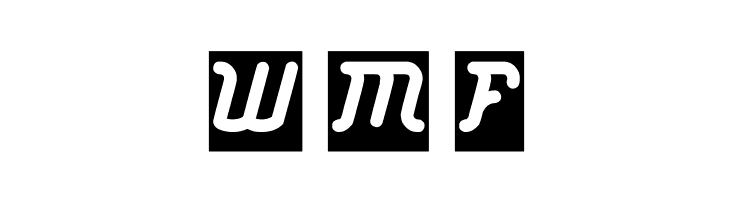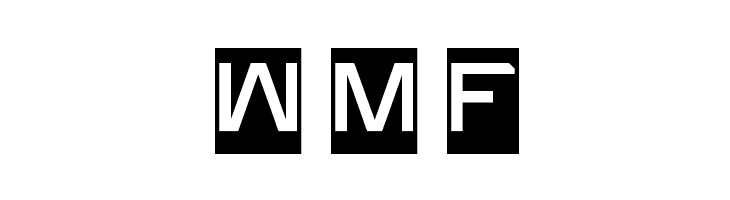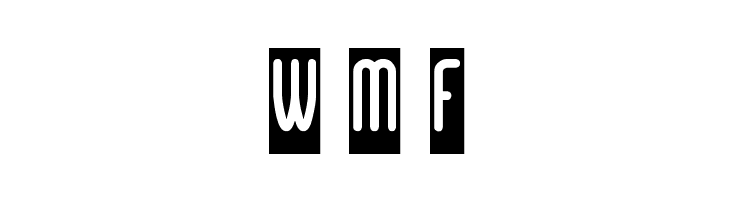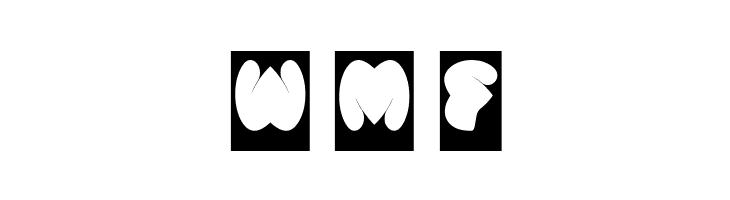
A bold, geometric font with a futuristic and cohesive design.
A bold, retro-inspired font with rounded, chunky characters.
A bold, jagged font with sharp, irregular edges for a dramatic effect.
A futuristic, geometric typeface with consistent stroke width and sharp angles.
A futuristic, hollow, outlined font with a digital aesthetic.
A modern, high-contrast font with elongated, vertically emphasized characters.
A futuristic, geometric font with consistent stroke width and bold presence.
A bold, playful font with rounded, bubble-like characters.
A bold, high-contrast font with sharp angles and smooth curves, offering a dynamic and modern style.
A bold, geometric font with a modern double-line style.
An artistic and decorative font with intricate woven patterns.
A bold, decorative font with high contrast and a stencil-like appearance.
A bold, geometric font with angular shapes and a futuristic look.
A futuristic, geometric font with bold lines and unique negative space usage.
A bold, futuristic font with geometric shapes and strong visual impact.
A bold, geometric font with angular strokes and high contrast, perfect for modern designs.
A futuristic, geometric font with rounded edges and consistent stroke width.
A bold, playful font with rounded, bubble-like characters.
A bold, artistic font with intricate curves and a modern flair.
A whimsical, hand-drawn font with a playful, storybook style.
A bold, hollow font with a modern slant and smooth curves.
A bold, dynamic font with rounded strokes and a slight slant.
A modern, rounded font with a clean and approachable design.
A modern sans-serif font with rounded edges and excellent readability.
A modern, sleek font with flowing lines and a futuristic aesthetic.
A bold, geometric font with a futuristic and digital style.
A bold, rounded font with a modern-retro vibe and narrow structure.
A dynamic, italic serif font with sharp angles and high contrast.
A playful, hand-drawn font with elongated, dynamic characters.
A bold, angular font with a dynamic and modern style.
A bold, layered font with a modern, geometric style.
A bold, playful handwritten font with rounded, irregular characters.
A playful, bubble-like font with rounded, exaggerated characters.